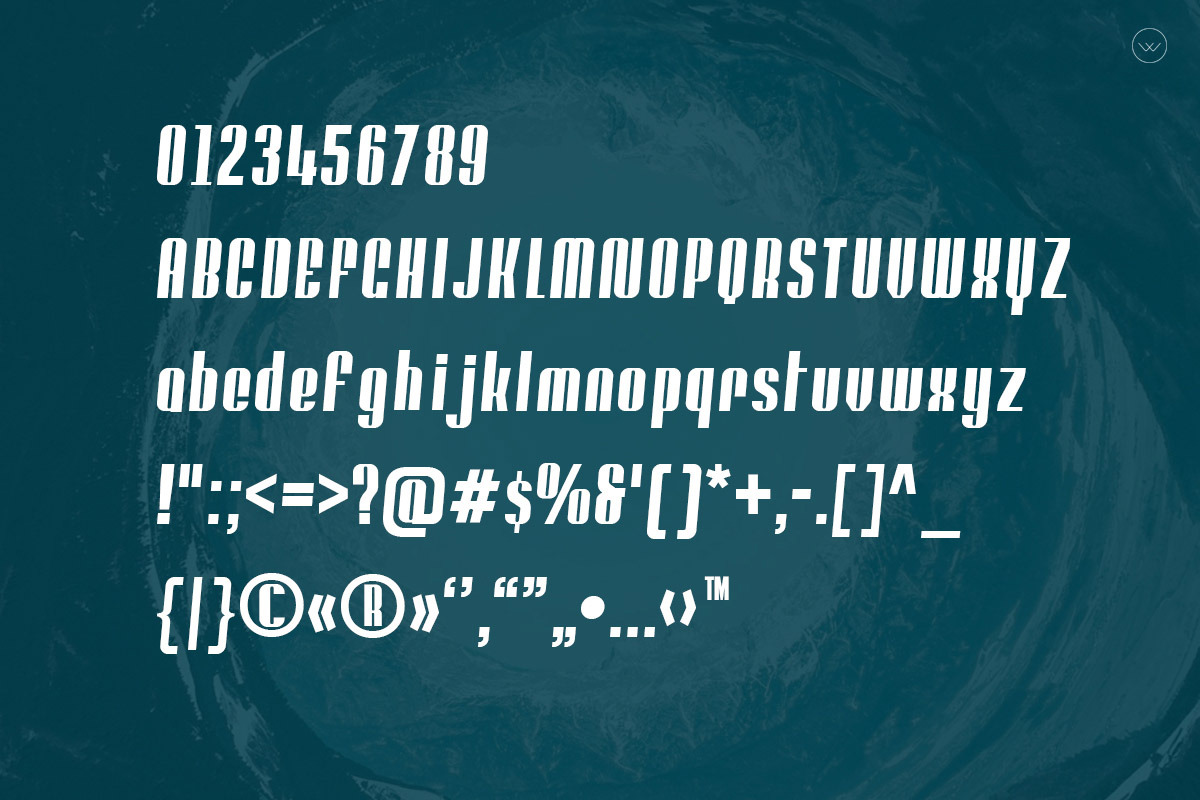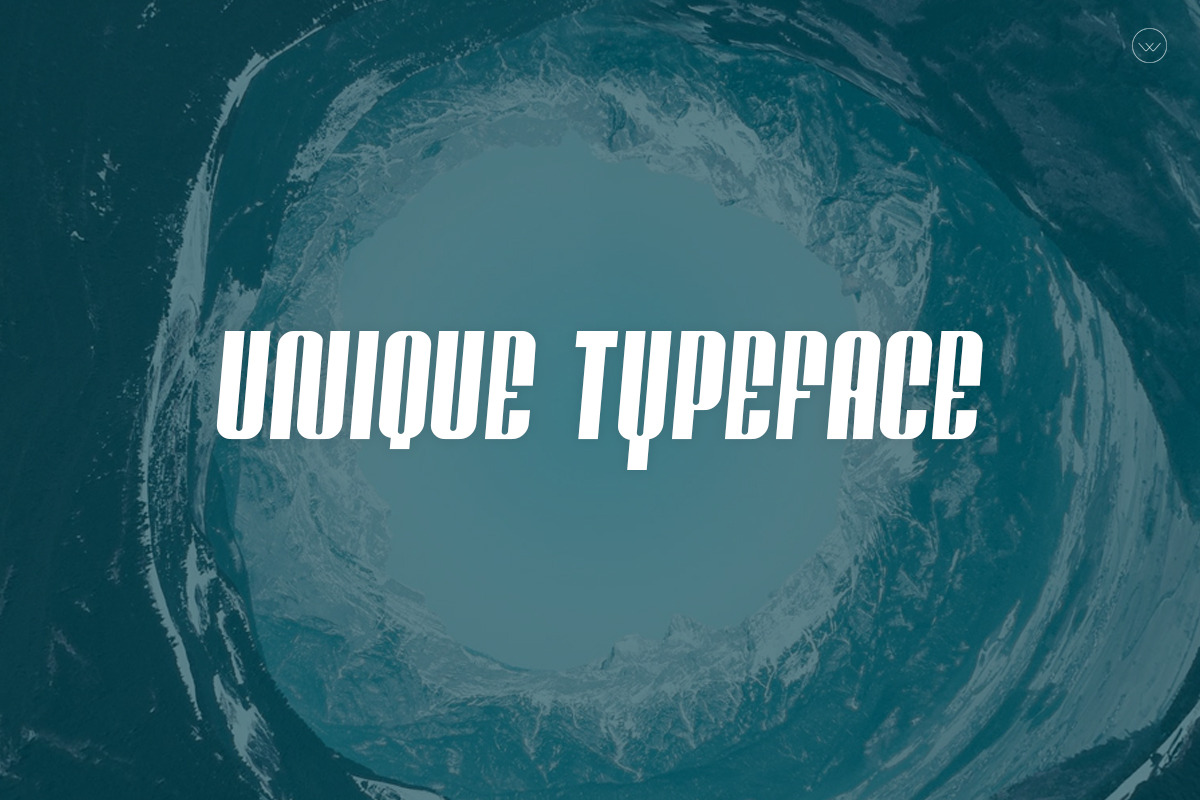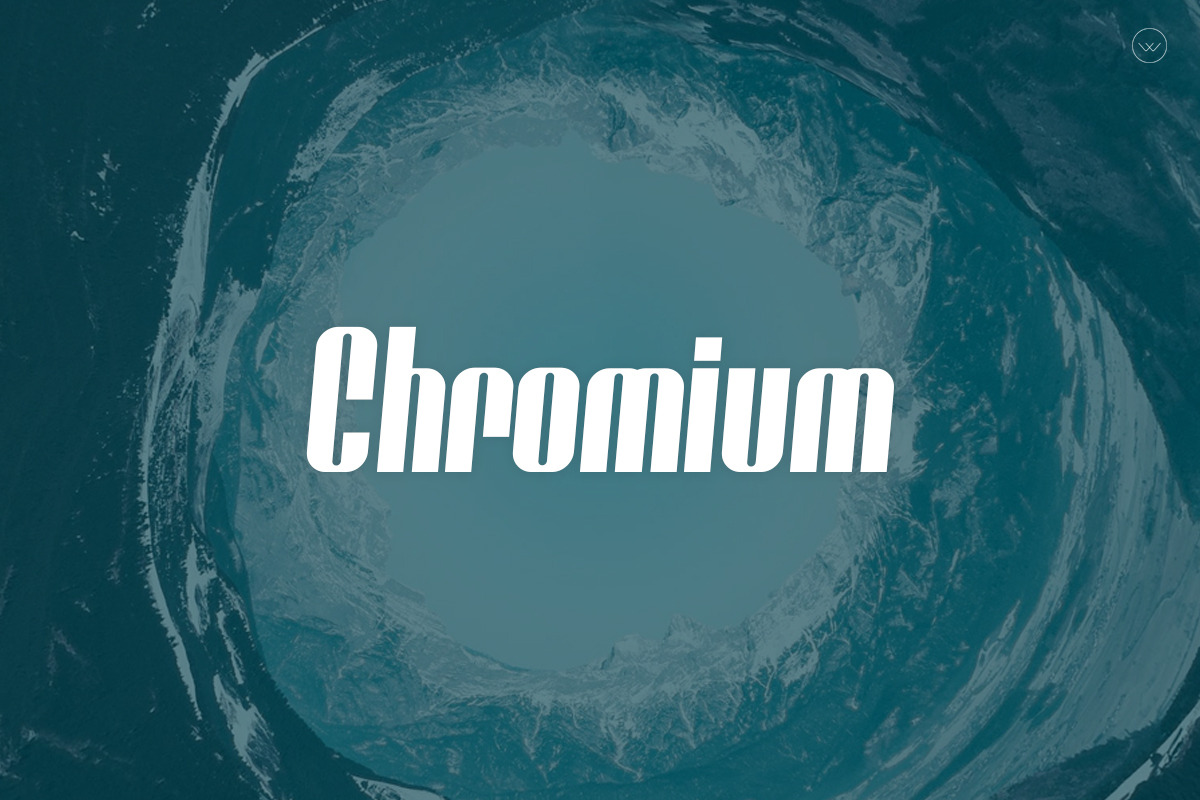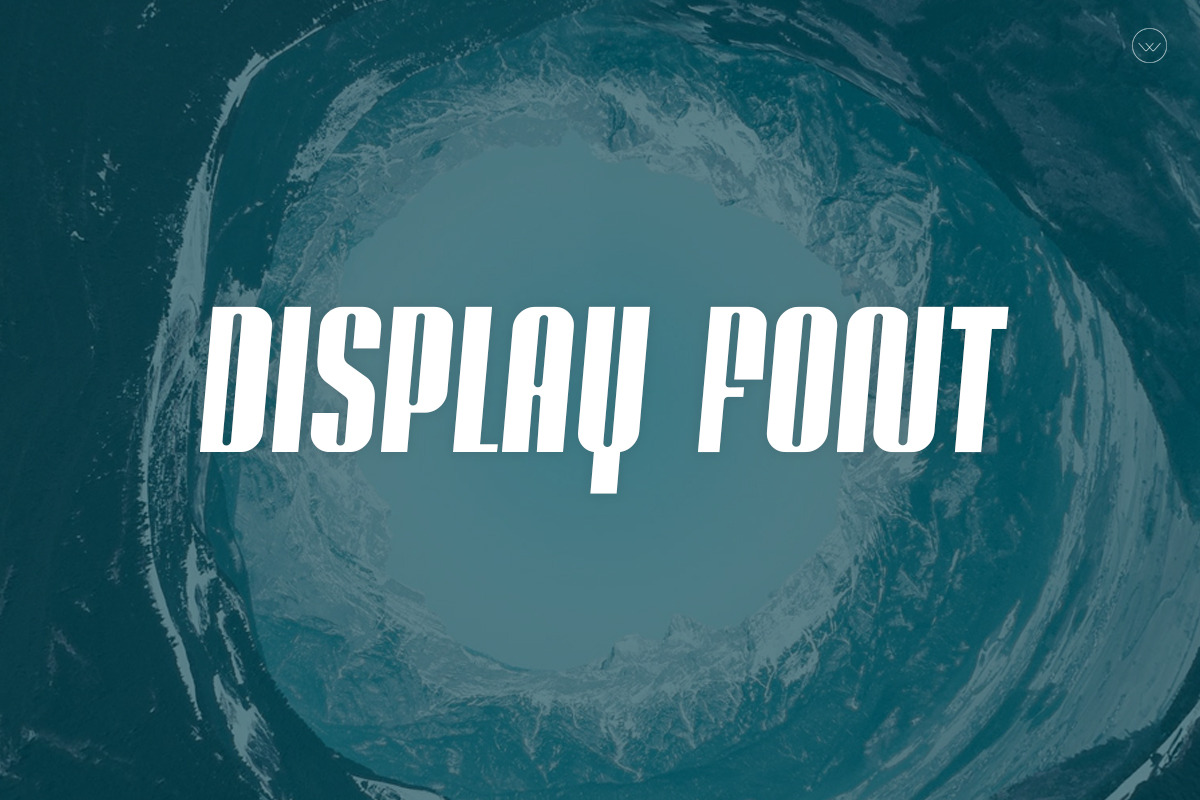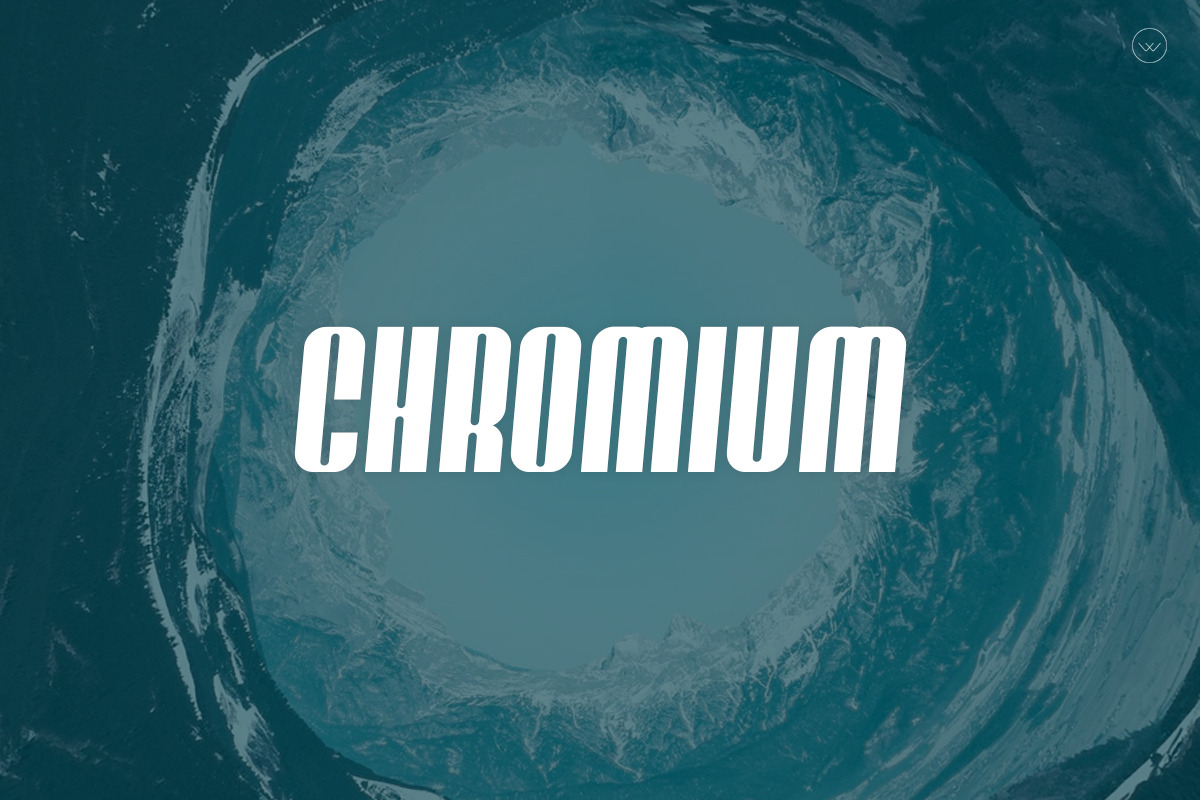
Chromium Display Typeface
Introducing our brand new Display Typeface Chromium – Display. This beautiful and Creative Font suitable for Film Posters, headlines, Block letters, Subheadings, Logo Designs, Big Banners Decorative Typography, and Web Designs.